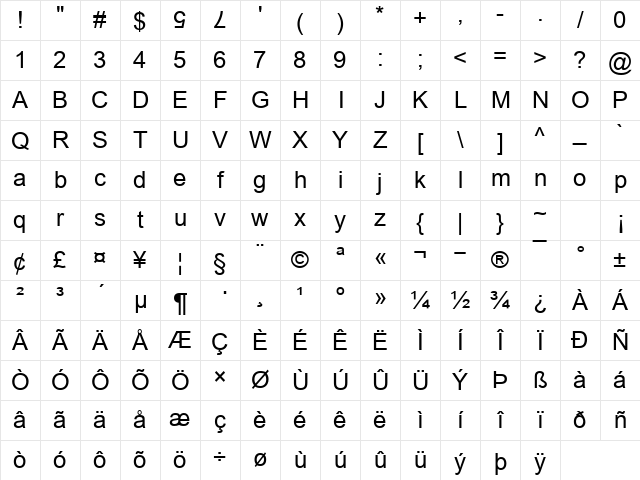
Complete Arabic+ Arial Regular glyph index. Displaying only characters natively supported by Arabic+ Arial Regular font.
Arabic+ Arial is a composed and adaptable typeface that performs quietly and consistently across a wide range of design contexts.